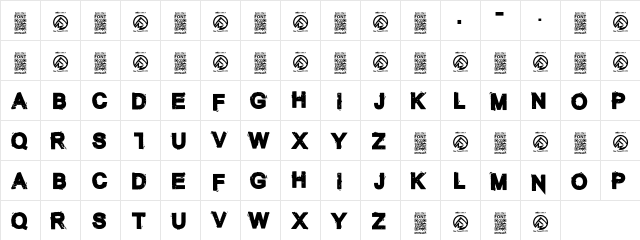
The Unknown Regular
| Foundry | Font Monger |
| Designer | Chris Vile |
Design Context for The Unknown Typeface
The Unknown is a composed and adaptable typeface that performs quietly and consistently across a wide range of design contexts.